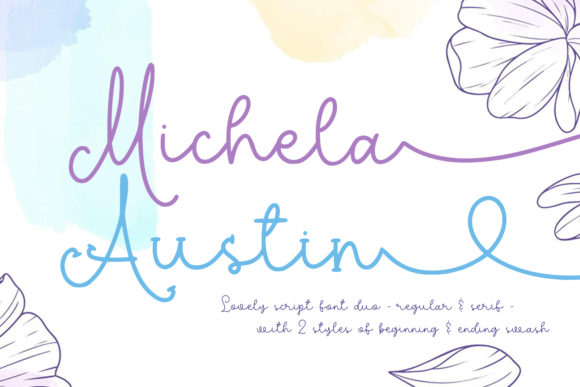
Step into the world of Michela Austin, a script font family renowned for its unparalleled elegance and charm. Each character is meticulously designed to exude a sense of sophistication and grace, inspiring you to create captivating designs that leave a lasting impression.
With its clean, thin, and smooth lines, Michela Austin effortlessly adds a touch of refinement to any project. Whether you're crafting logos, invitations, or social media posts, this font is guaranteed to elevate your designs and make them stand out from the crowd.
Michela Austin's versatility knows no bounds. Its delicate curves and refined strokes lend themselves beautifully to a wide spectrum of design styles, from classic and timeless to modern and minimalist. Unleash your creativity and explore the endless possibilities that await you with this versatile font.
One of the most captivating features of Michela Austin is its PUA encoding. This innovative technology allows you to effortlessly access a treasure trove of glyphs and swashes, empowering you to add intricate details and flourishes to your designs with ease. Elevate your projects to new heights of visual appeal and let your imagination run wild as you create stunning compositions.
But what truly sets Michela Austin apart is its profound emotional impact. This font possesses an inherent ability to evoke a sense of wonder and enchantment, captivating your audience and drawing them into your designs. Whether you're creating invitations for a special occasion or crafting social media posts that demand attention, Michela Austin will leave a lasting impression and make your words come alive.